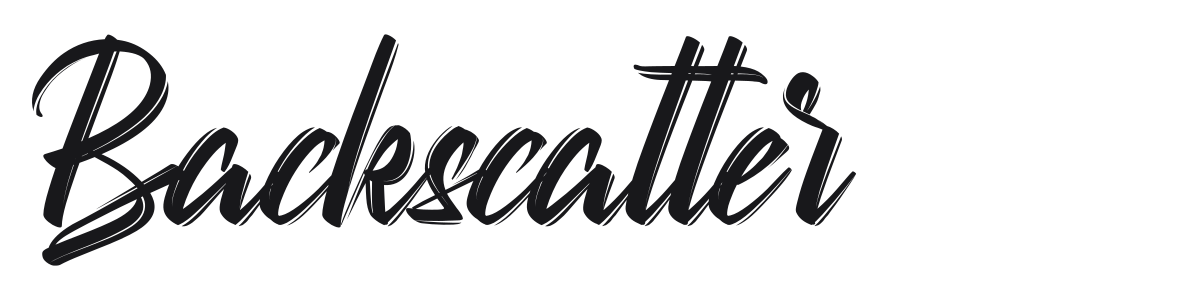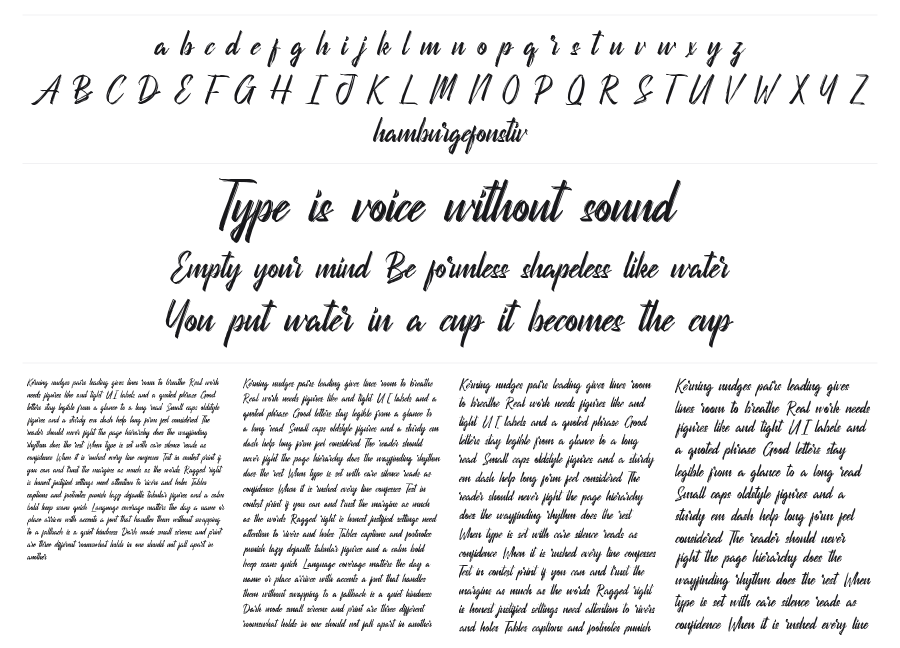
Backscatter
Backscatter is a bold brush script with the raw energy of fast-moving ink and visible bristle texture at stroke endings. High contrast between thick downstrokes and thin hairlines gives each word a lively, rhythmic pulse. It reads instantly as handcrafted without feeling precious.